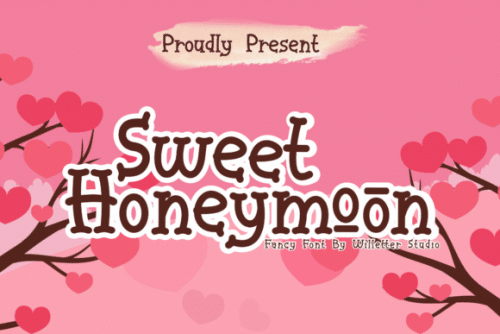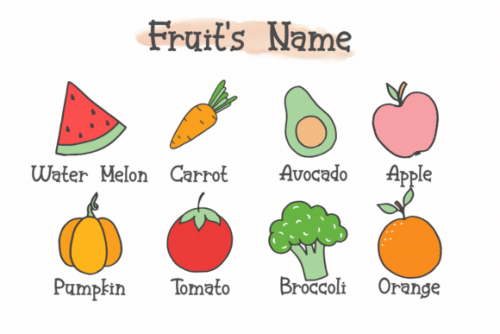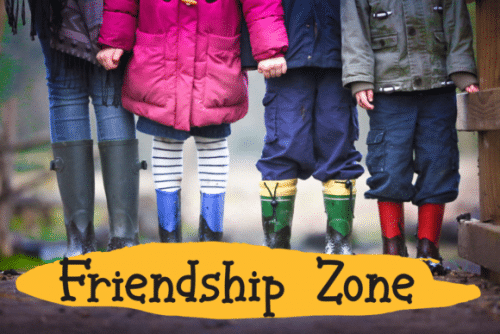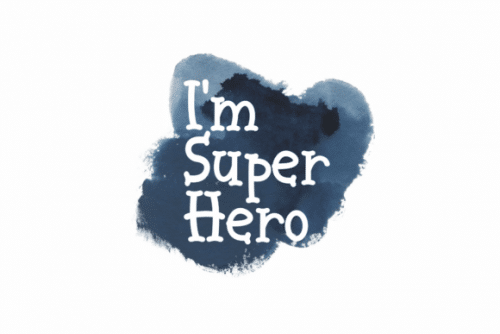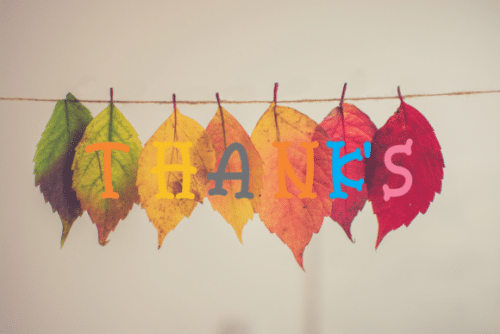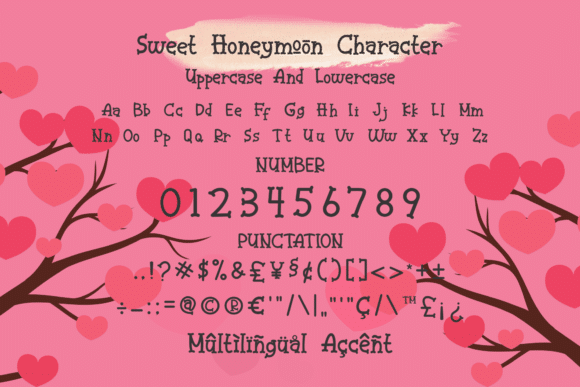
Sweet Honeymoon is a sweet and casual handwritten font with an incredibly friendly feel. It will add a romantic touch to any crafting project!
Sweet Honeymoon is perfectly suited for stationery, logos, t-shirt, paper, print design, website header, photo frame, flyer, music cover, poster, image slider and much more.
- Designer: Willetter Studio